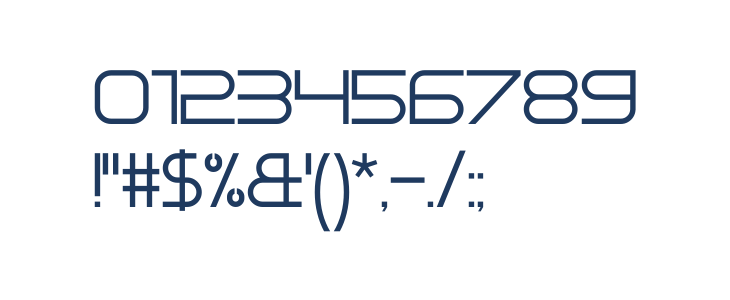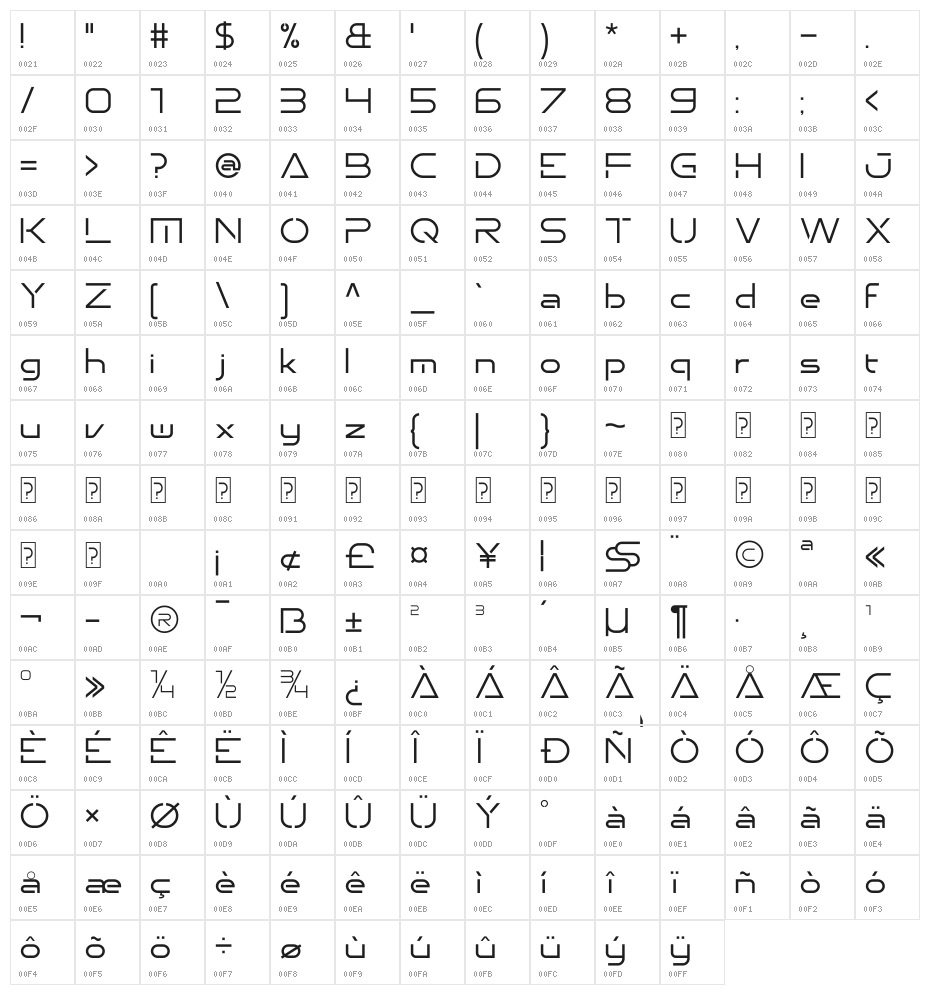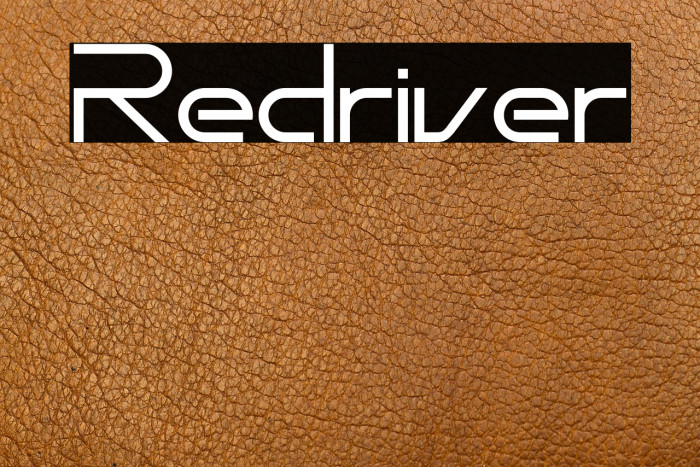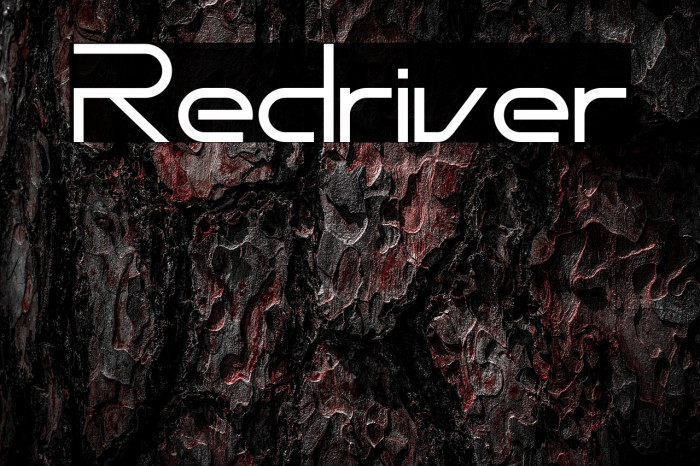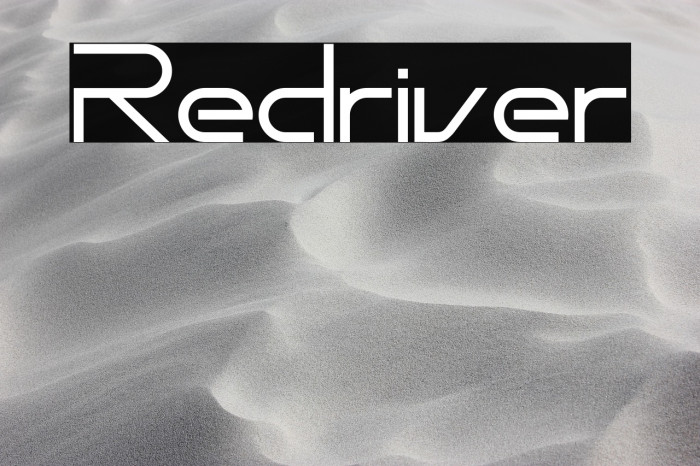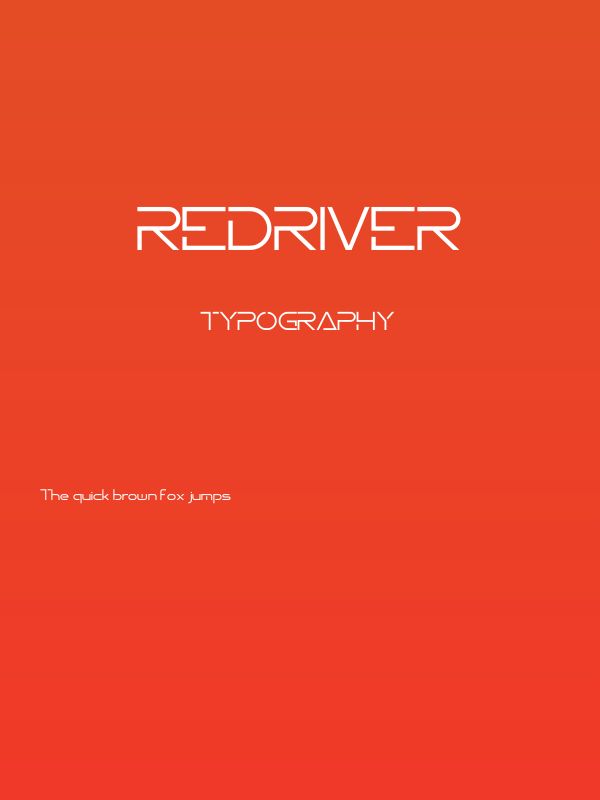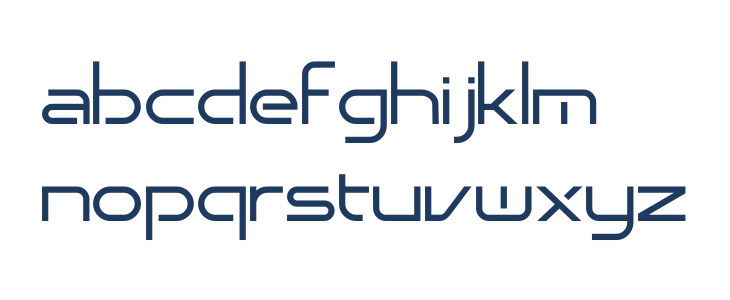
Redriver Font
Redriver Description
This font features a futuristic and geometric design, characterized by its clean lines and angular shapes. The uppercase letters have a distinct, modern appearance with sharp edges and a uniform stroke width, giving it a sleek and contemporary feel. The lowercase letters maintain the geometric theme, with rounded curves that contrast with the angular uppercase, providing a balanced and cohesive look. The numerals and special characters follow the same design principles, ensuring consistency across all glyphs. This font is ideal for projects that require a modern and innovative aesthetic, such as technology branding, digital interfaces, or sci-fi themed designs.